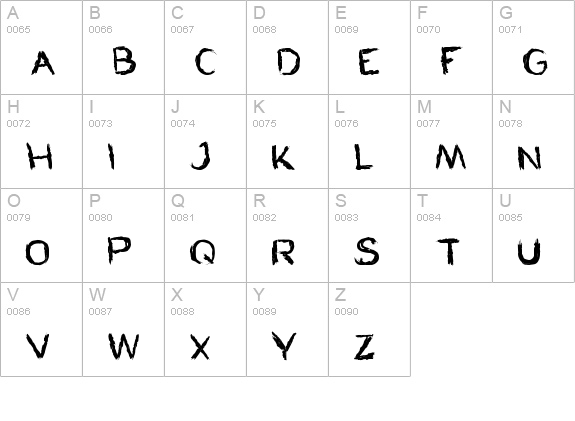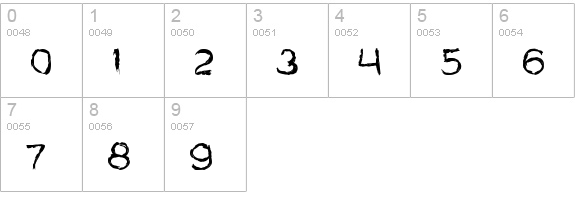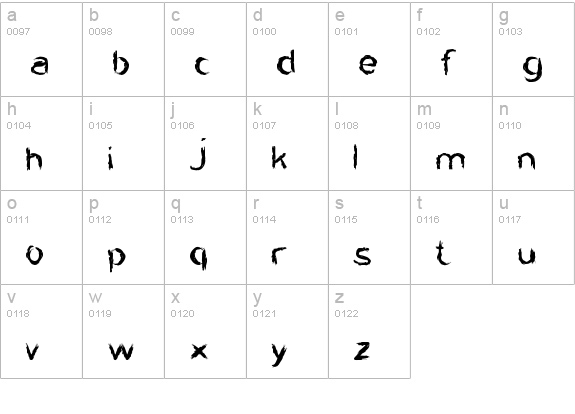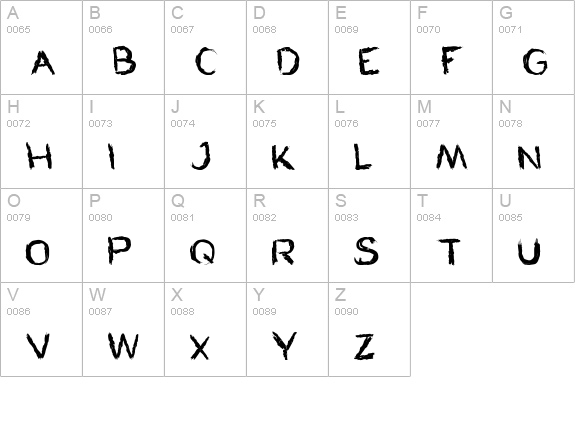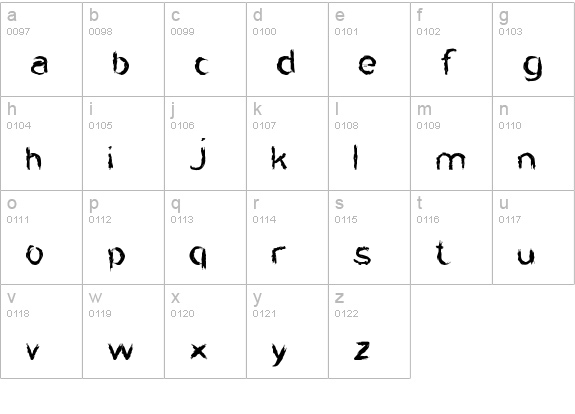
Introducing HARLEY QUEEN font, a bold and dynamic typeface that exudes a captivating charm. With its unique and distorted letterforms, this font embodies the rebellious spirit of the iconic character it is named after. HARLEY QUEEN is the epitome of edgy elegance, making it the perfect choice for projects that demand attention and stand out from the crowd. This font is not only visually striking but also highly versatile, suitable for a wide range of design applications. Whether you're working on branding, packaging, advertising, or any creative endeavor, HARLEY QUEEN will add a touch of boldness and character to your designs. One of the best things about HARLEY QUEEN font is that it is freely available to download at FontsMarket.com. You can now unleash your creativity without any constraints, as this font allows you to express your artistic ideas with its distinctive and eye-catching style. With HARLEY QUEEN, you can create designs that leave a lasting impact and make a statement. Its unconventional letterforms and intricate details make it a font that is impossible to ignore. Let your imagination run wild and explore the endless possibilities that this font has to offer. So why wait? Get your hands on HARLEY QUEEN font today and let it infuse your designs with a rebellious spirit and unrivaled charm. Download it for free at FontsMarket.com and embark on a creative journey that is bound to leave a lasting impression.